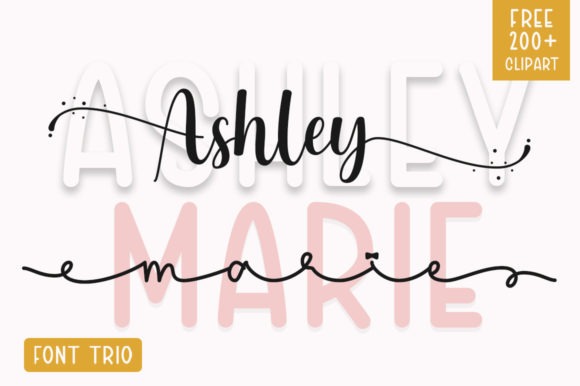
Cool modern style font trio for your new projects. It’s designed and shared by Fillo Graphic. Incredibly versatile, this font fits a wide pool of designs, elevating them to the highest levels. Add this font to your favorite creative ideas and notice how it makes them come alive!
Asley Font Trio